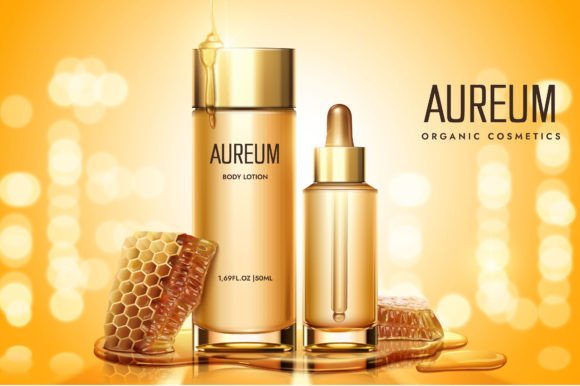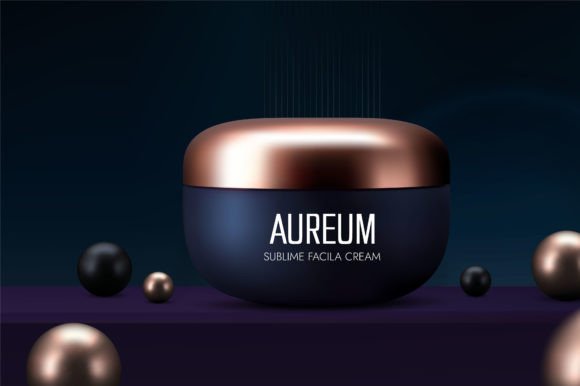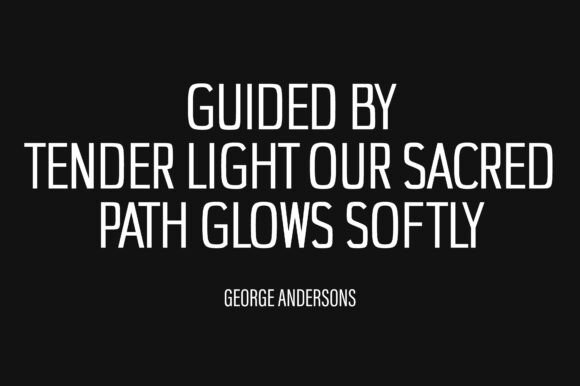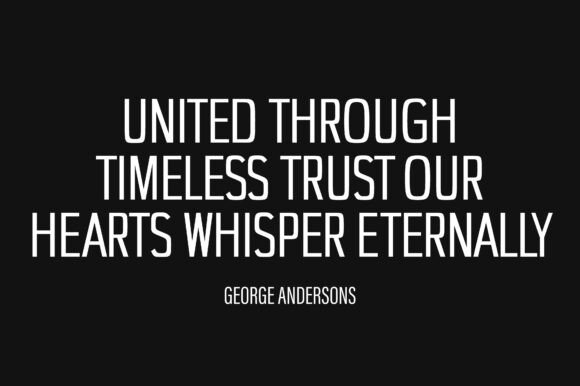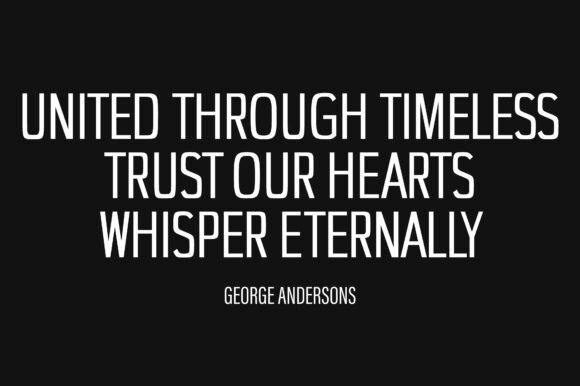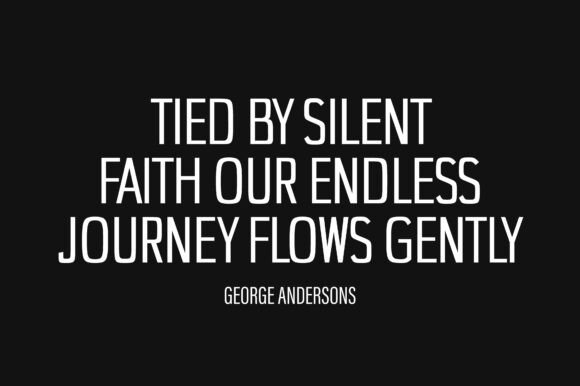
Aureum Font: Elevate Your Designs with Luxury and Elegance
In the world of typography, fonts play a crucial role in conveying the tone and aesthetic of a design. For designers and crafters seeking to add a touch of luxury and sophistication to their creations, the Aureum font is an excellent choice. This condensed, cute, and elegant sans serif typeface is designed to bring a unique and high-end feel to various design projects.
The Origin and Meaning of Aureum
The name “Aureum” is derived from the Latin word “aurem,” which translates to “gold” in English. This name is fitting, as the Aureum font is designed to add a golden touch of luxury to designs. Its elegant and refined appearance makes it perfect for projects where a high-end feel is desired.
Key Features of Aureum Font
- Condensed and Elegant Design: The Aureum font boasts a condensed design that is both elegant and sophisticated. Its sans serif style gives it a clean and modern look, making it versatile for various design applications.
- Cute and Luxurious Aesthetic: Despite its condensed nature, the Aureum font manages to be cute and endearing. Its unique design elements make it stand out, adding a touch of whimsy to designs while maintaining a luxurious feel.
- Versatility in Design: Aureum is incredibly versatile and can be used across a wide range of design themes. From packaging design and perfume branding to cosmetics and magazine covers, this font can elevate any project with its luxurious touch.
Applications of Aureum Font
The Aureum font’s versatility makes it suitable for various design projects. Here are some of the areas where it can make a significant impact:
- Packaging Design: For product packaging, Aureum can add a sophisticated and premium feel, making products stand out on store shelves.
- Perfume and Cosmetics Branding: The elegant and luxurious appearance of Aureum makes it perfect for branding in the perfume and cosmetics industries, where high-end aesthetics are crucial.
- Magazine Covers: Using Aureum for magazine covers can give them a classy and sophisticated look, attracting readers with its luxurious appeal.
- Digital and Print Media: Whether it’s for digital platforms or print materials, Aureum’s clean and elegant design ensures it remains legible and impactful across various mediums.
How to Use Aureum Font Effectively
To make the most of the Aureum font, consider the following tips:
- Pair with Complementary Fonts: While Aureum is elegant on its own, pairing it with complementary fonts can enhance its beauty. Choose fonts that contrast yet complement its sans serif style.
- Experiment with Colors: The luxurious feel of Aureum can be further emphasized with the right color choices. Gold, black, and pastel colors can enhance its elegant appearance.
- Play with Sizes: Utilizing Aureum in various sizes can add depth to your designs. Larger text for headings and smaller text for body content can create a visually appealing hierarchy.
The Aureum font is a valuable addition to any designer’s toolkit. Its unique blend of elegance, luxury, and versatility makes it suitable for a wide range of design projects. By incorporating Aureum into your designs, you can add a touch of sophistication and luxury that will make your creations stand out. Whether you’re working on packaging, branding, or editorial design, Aureum is sure to elevate your work to new heights.
In conclusion, the Aureum font is a beautiful and elegant typeface that can add a luxurious touch to any design project. Its versatility, combined with its sophisticated appearance, makes it a great choice for designers looking to elevate their work. By understanding its features and applications, designers can make the most of Aureum and create stunning, high-end designs.